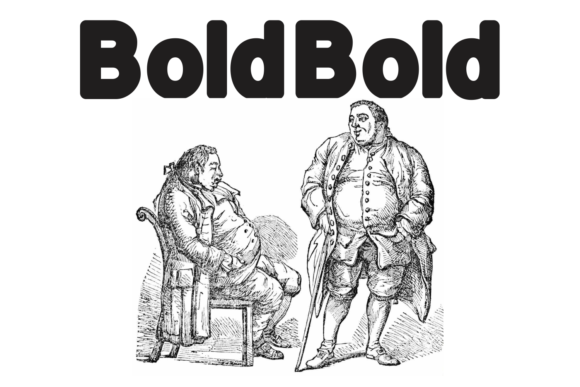
Unleashing the Power of Statement Typography
The moment of truth arrives when you’re working on a design project, and you need to make a bold statement. You’ve crafted a beautiful layout, but something’s missing – that extra oomph to grab attention and leave a lasting impression. This is where the right typography comes in, and for designers, the BoldBold Font is a game-changer.
Developed to make a statement, BoldBold Font is an extrabold font design that adds a touch of sophistication and elegance to any project. Its purpose is simple – to make your content stand out and convey confidence. With its bold, yet refined aesthetic, BoldBold Font is a valuable addition to any designer’s toolkit, offering endless possibilities for creative expression.
BoldBold Font Key Features
- Font Family: BoldBold Font is a sans-serif font family, designed for clear readability and modern aesthetics.
- Size: The font family includes 14 font weights, ranging from Light to Black, allowing for precise control over typography.
- Language Support: Supports over 100 languages, including Latin, Cyrillic, Greek, and many others, making it suitable for global applications.
- Unique Characteristics: Features a unique blend of geometric and organic elements, resulting in a distinctive and modern aesthetic.
Review of BoldBold Font
Overall, I think BoldBold Font has some great qualities, but it’s not without its limitations. ✨ First of all, I love the unique and edgy feel of this font. It’s perfect for creating eye-catching headings and titles that really grab the reader’s attention. The bold, condensed shape of the letters gives it a modern and sleek look that’s sure to impress.
Another thing I appreciate about BoldBold Font is its versatility. ✨ It works well in a variety of contexts, from digital signage to print materials. It’s also highly customizable, with plenty of options for adjusting the weight, size, and spacing of the letters.
- ⚠️ Inconsistent spacing between letters: At times, the spacing between letters can be a bit uneven, which can affect the overall readability of the text.
- ⚠️ Limited language support: BoldBold Font is currently only available in a limited number of languages, which may be a drawback for designers working on global projects.
Despite these limitations, I think BoldBold Font is a great choice for designers who want to add some visual punch to their projects. With a little tweaking and adjustment, it can be a real showstopper. Overall, I’d give it 4 out of 5 stars.
Alternatives to BoldBold Font
Comic Sans
Comic Sans is a sans-serif font designed by Vincent Connare in 1994. It is a playful and informal font often used in children’s materials, newsletters, and websites. When to use: Comic Sans is best used in situations where a friendly and approachable tone is desired. It is not suitable for formal documents or corporate branding.
Comparison to BoldBold Font: Comic Sans is more informal and playful than BoldBold Font, which is often used in formal contexts. While BoldBold Font is a bold font, Comic Sans is more cursive and has a more rounded feel.